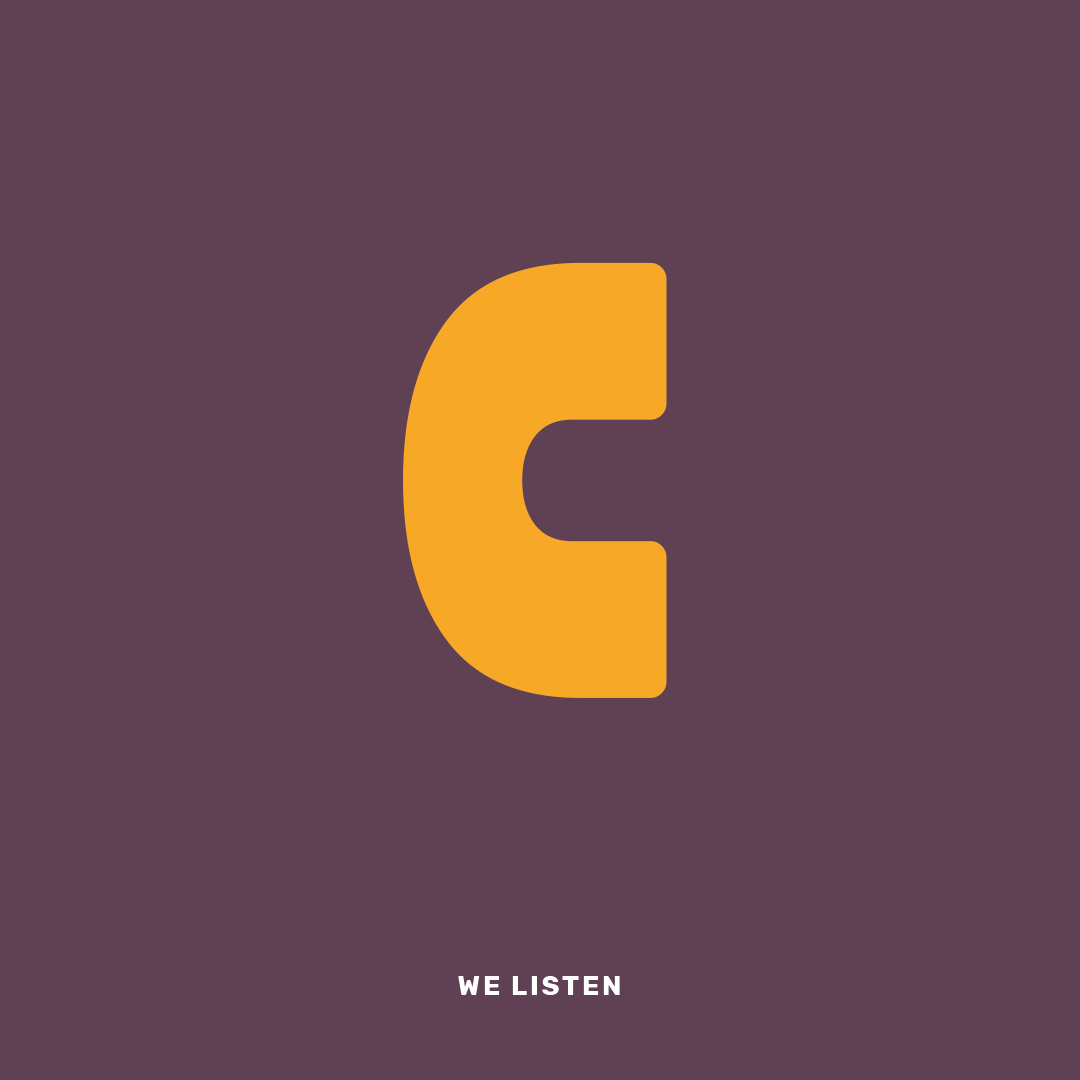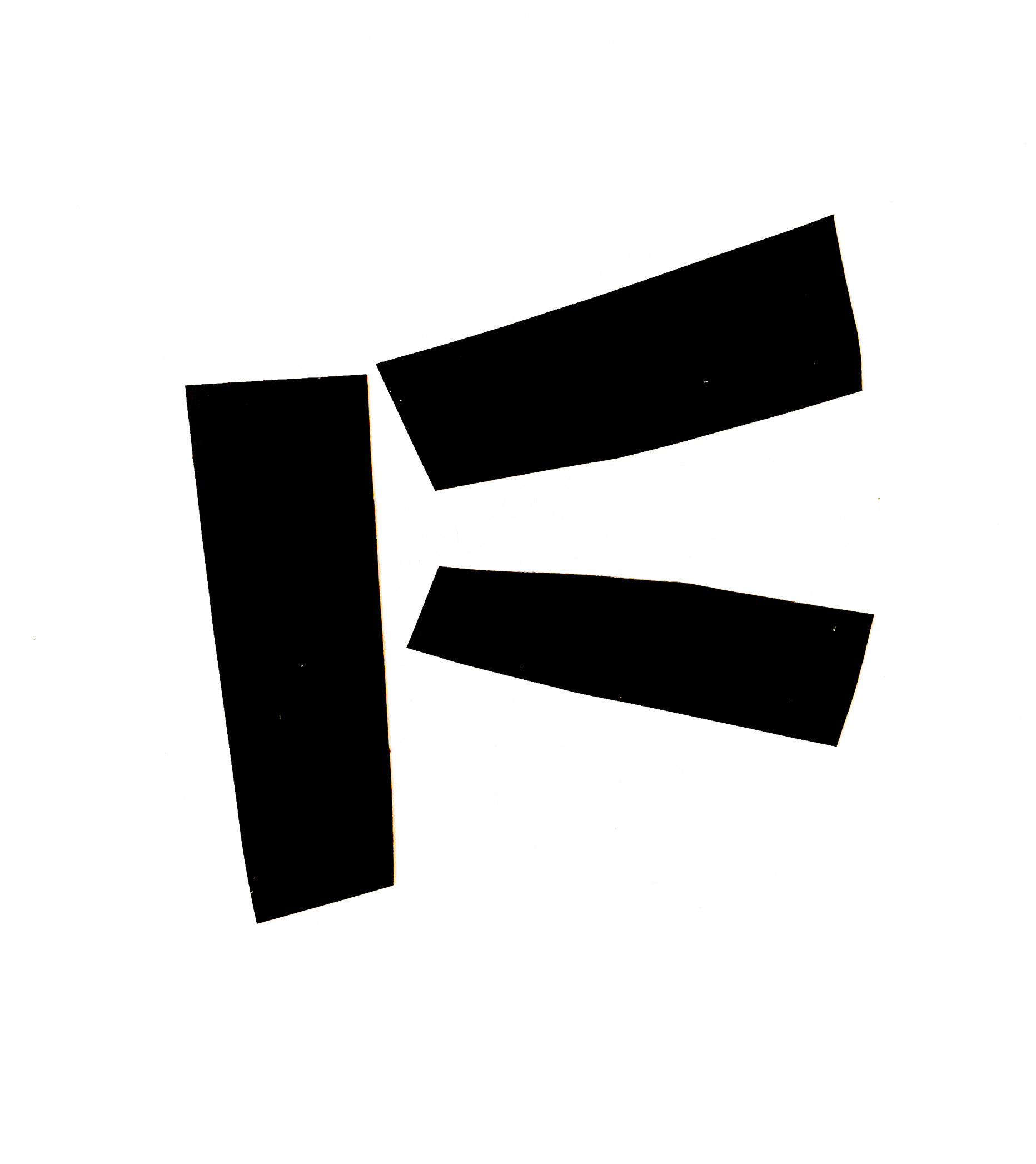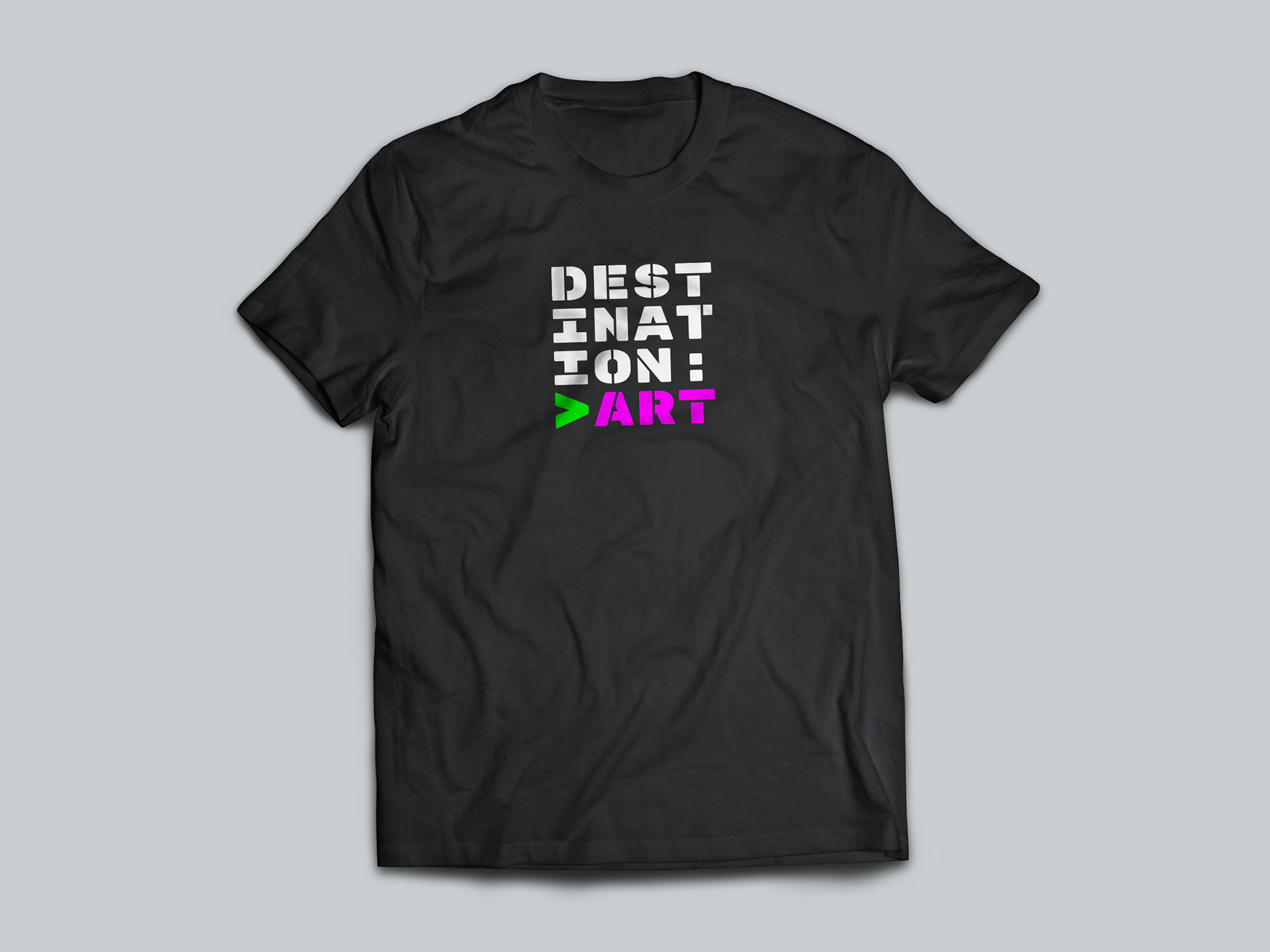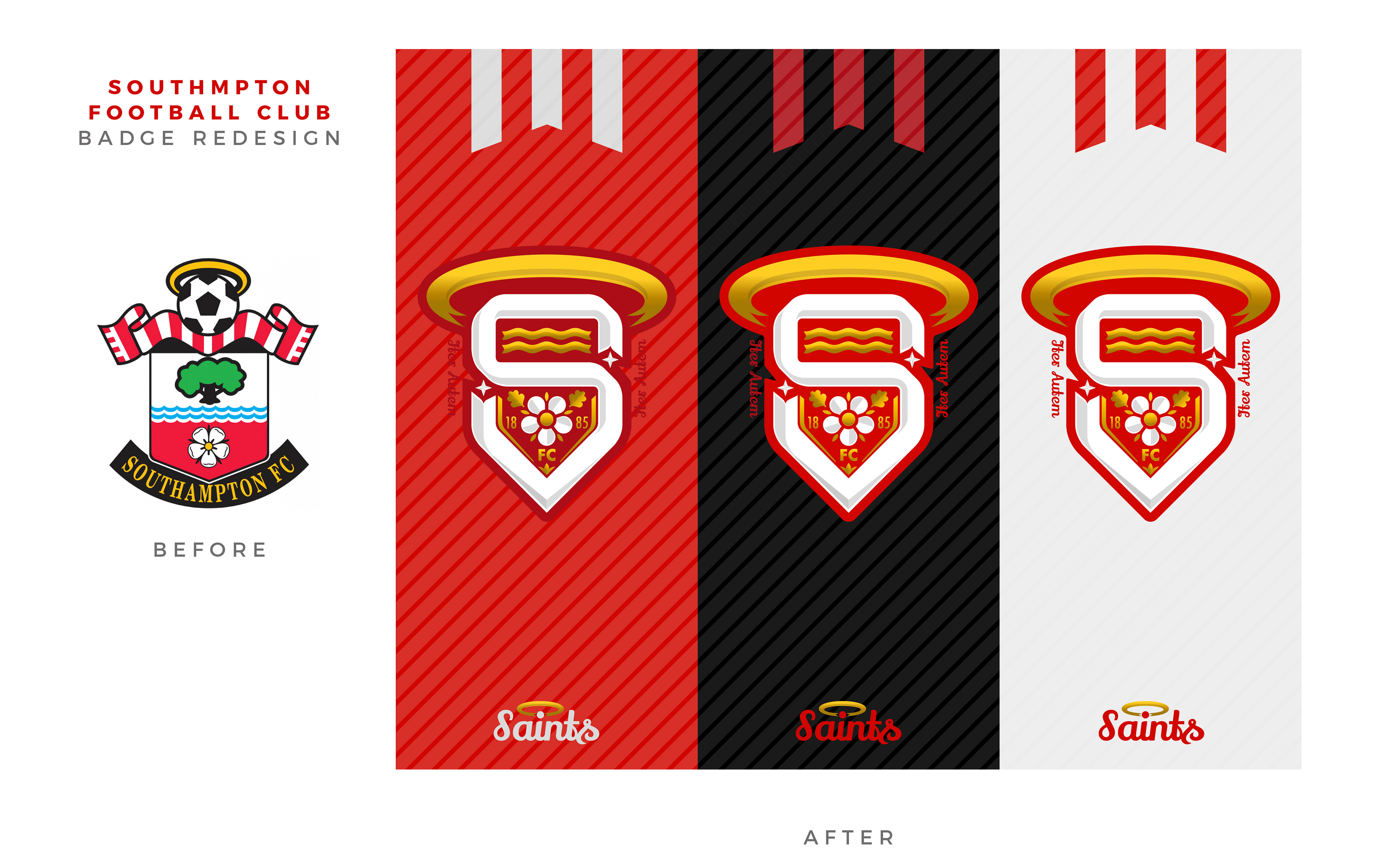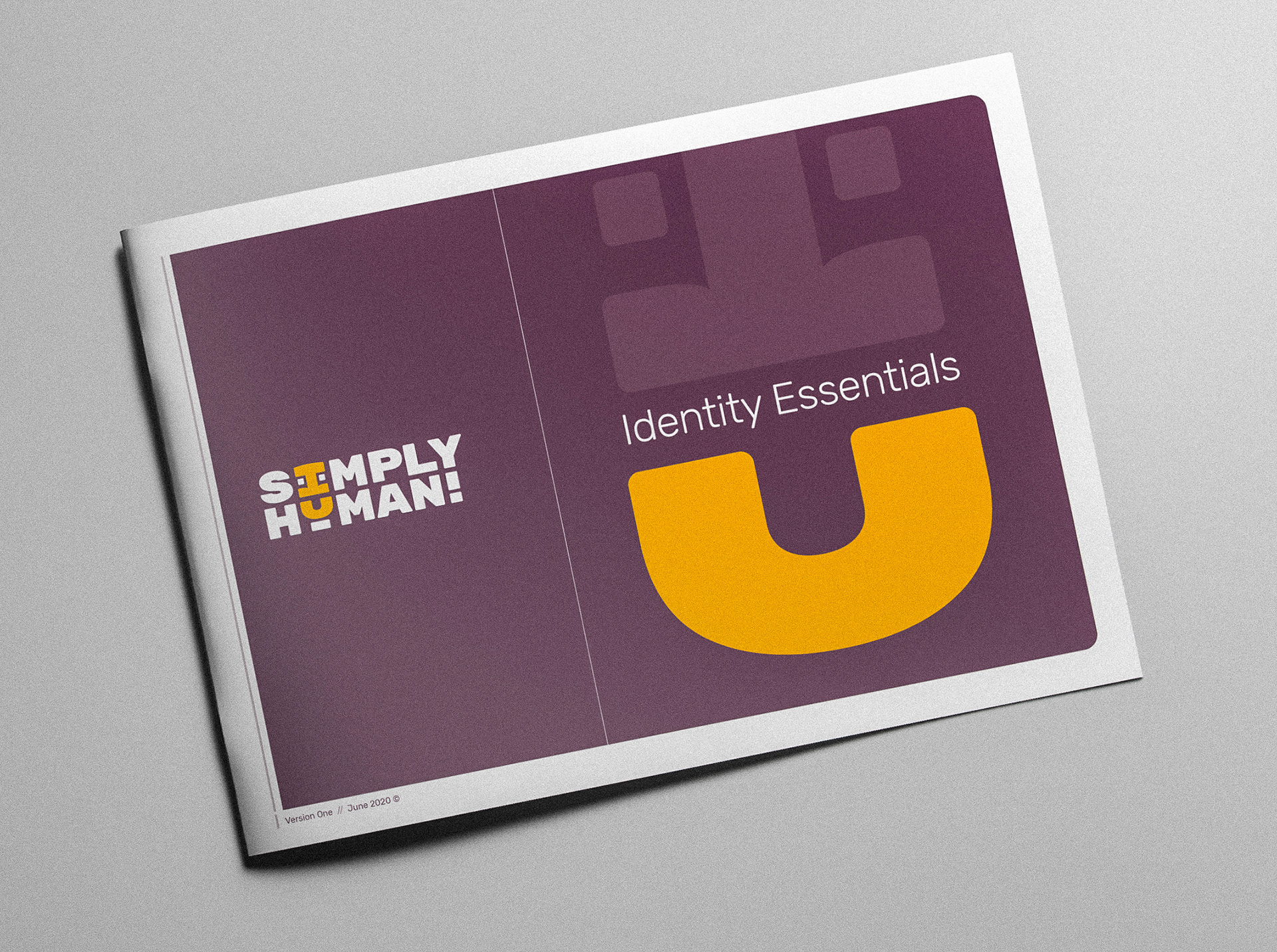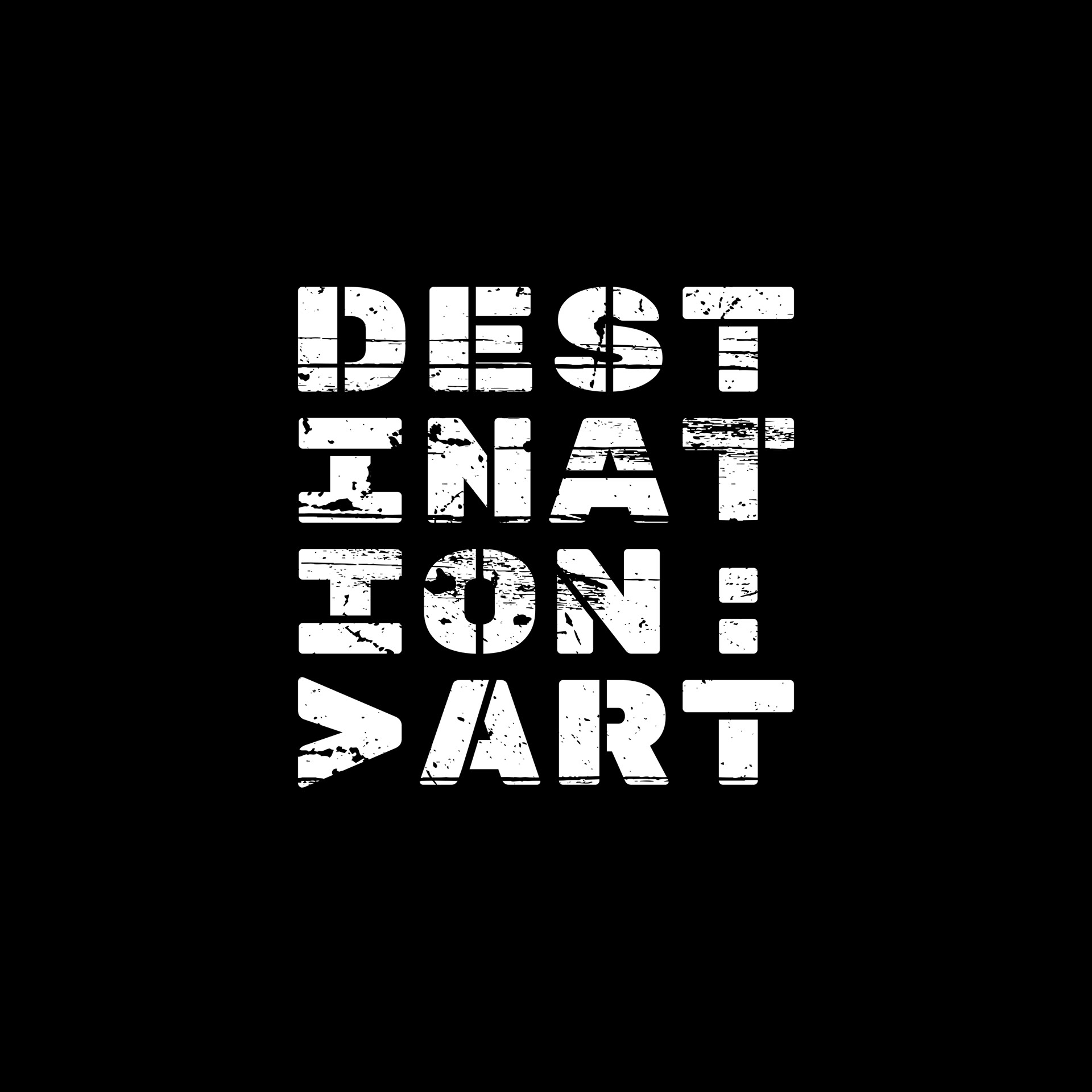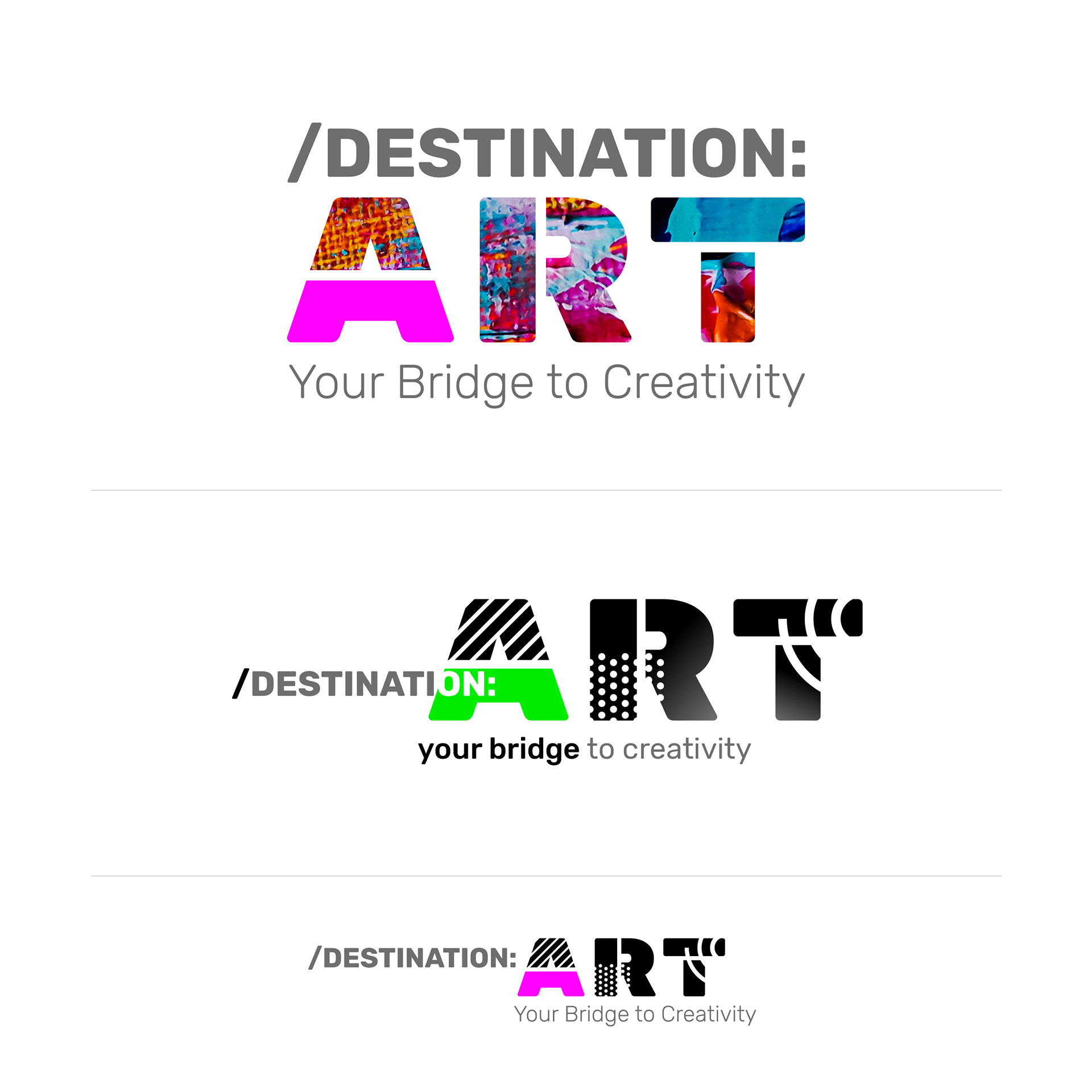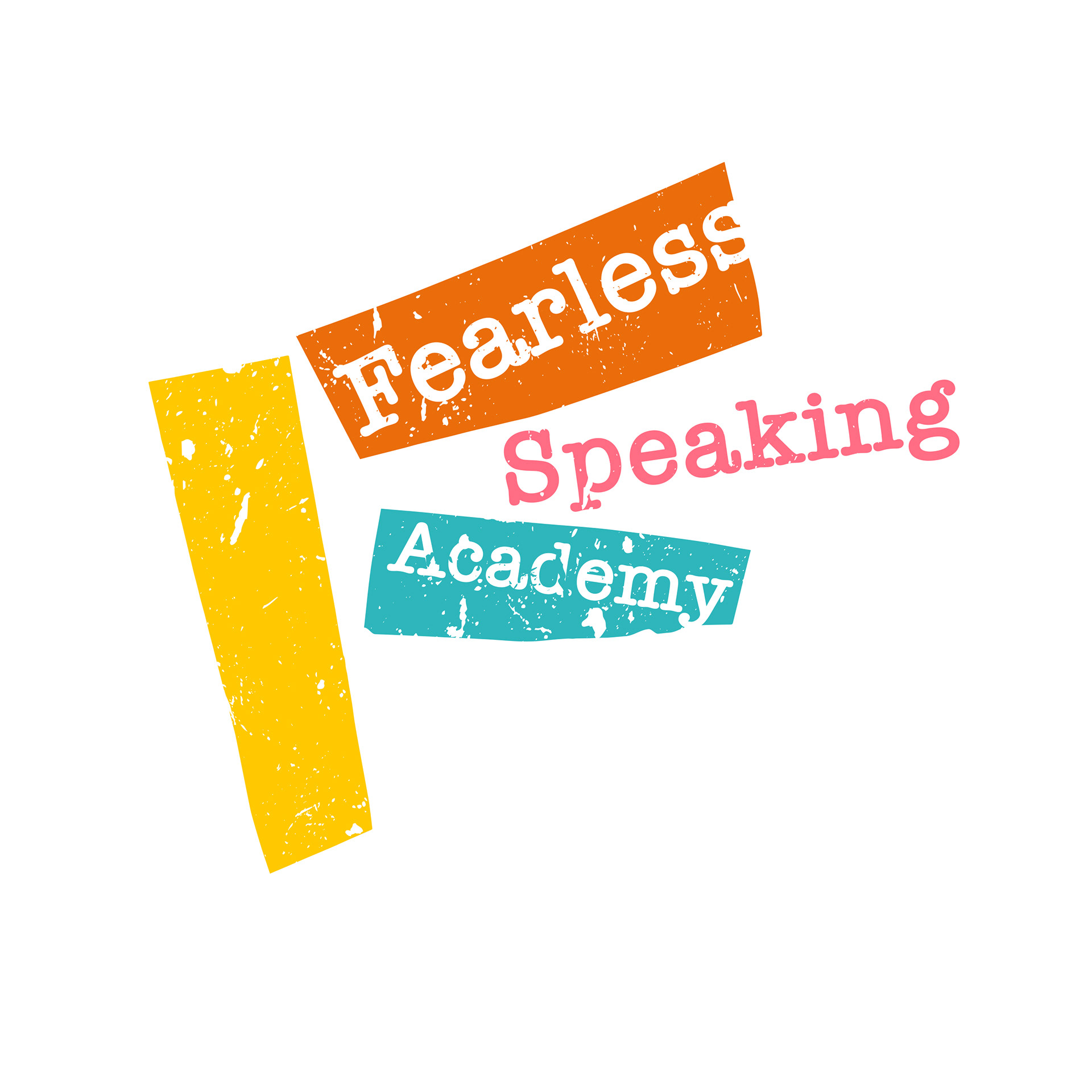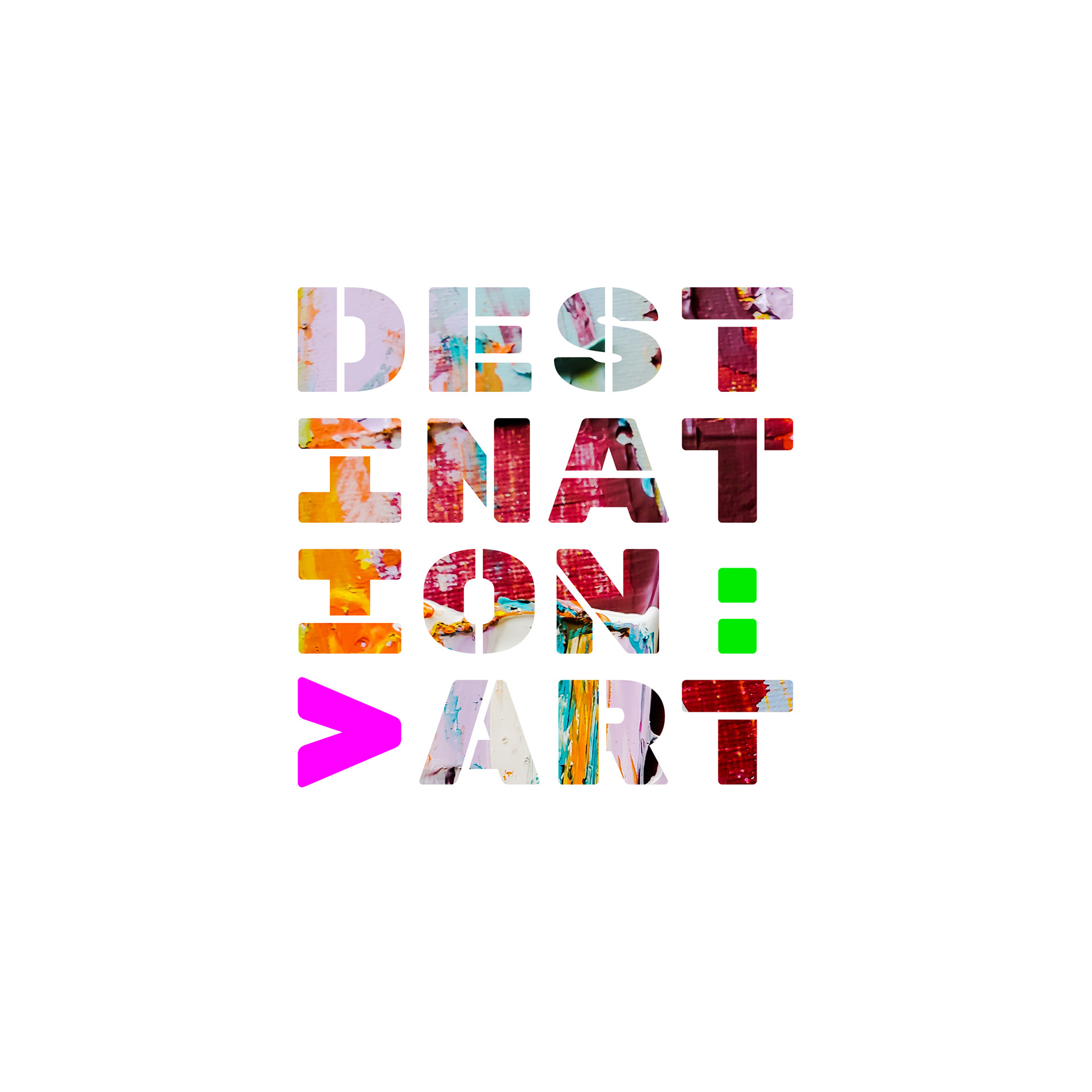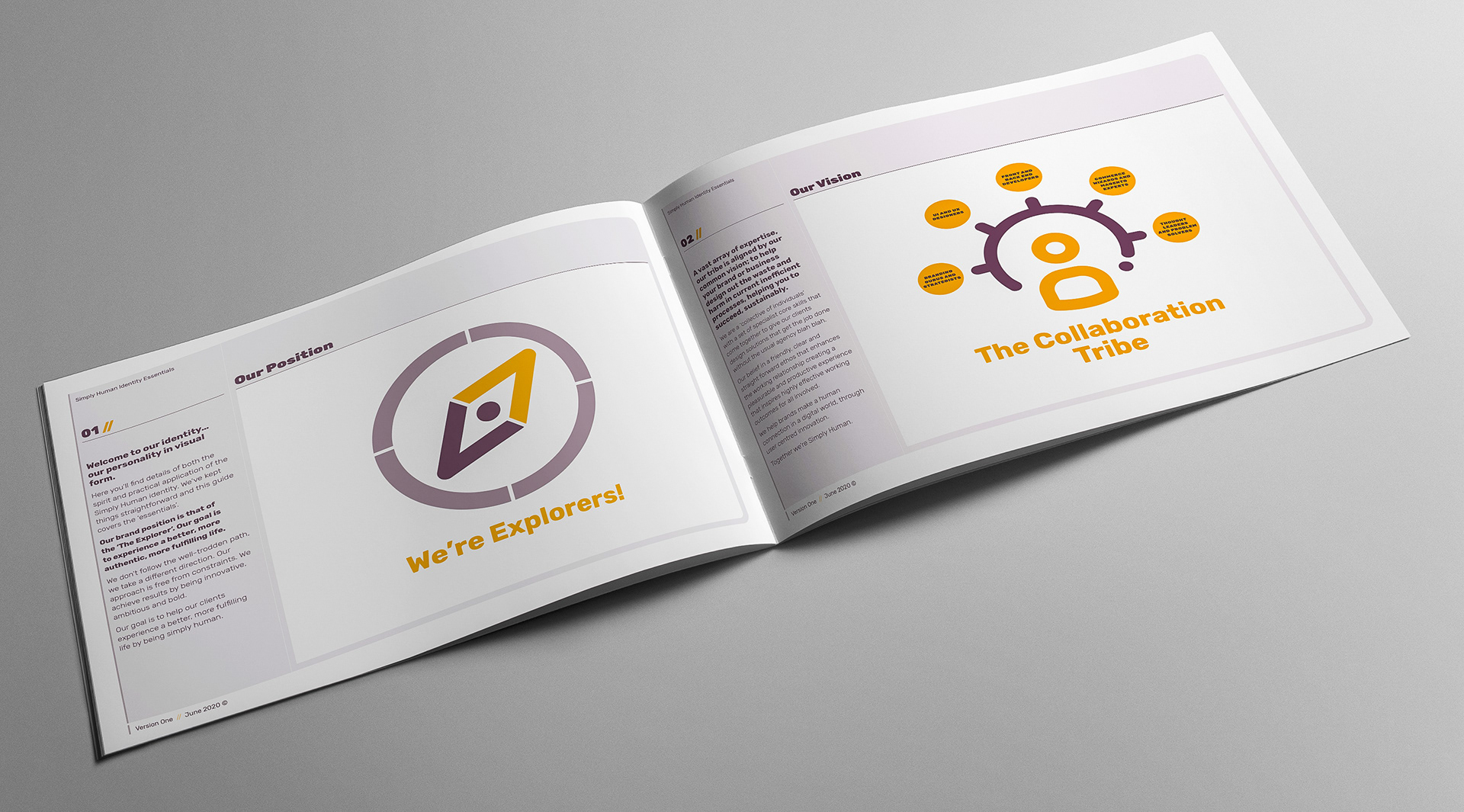
Brand guides for a customer centric cooperative agency
Spread from brand guides
Animation presenting agency ethos
Initial bridge concept for LA gallery
Creation of monospace stencil typographic idea
Monospace stencil becomes a dynamic identity
Application to gallery T-shirt
Monogram idea formed from black tape
Modification from sketchbook thought
Completed logo – The tape idea can then be utilised as an asset for the branding
A proposal for a redesign of the Southampton Football Club crest
Idea for the design of the shirt using the red and white stripes in a dramatic look